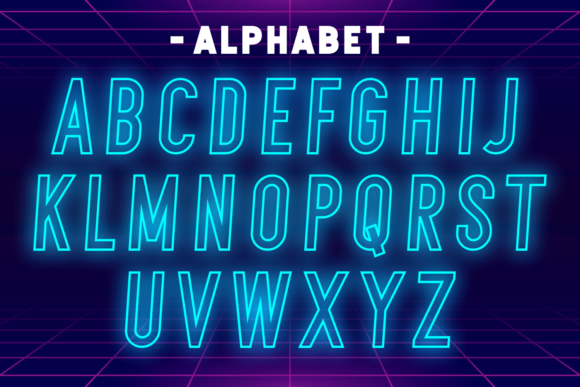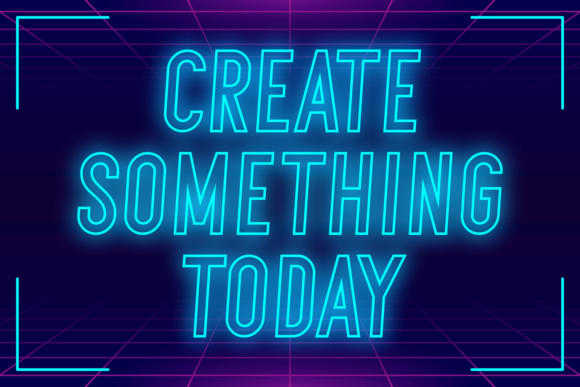
Introduction to Glowink Font
Glowink is a cool and bold outlined display font.
It will look stunning on any poster flyer or print Use this font for your designs and explore its endless possibilities.
Key Features of Glowink Font
Why Choose Glowink Font?
Glowink Font offers exceptional quality and versatility, making it a valuable addition to your design toolkit. Whether you’re creating for personal projects or commercial use, Glowink Font delivers professional results.